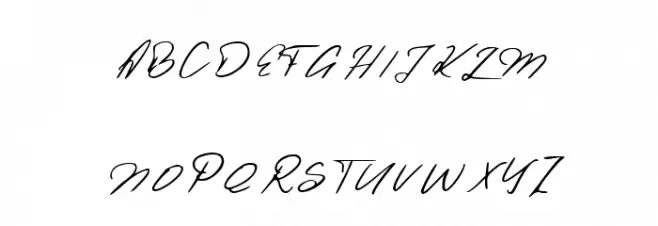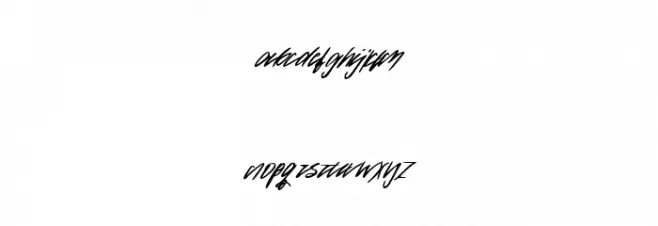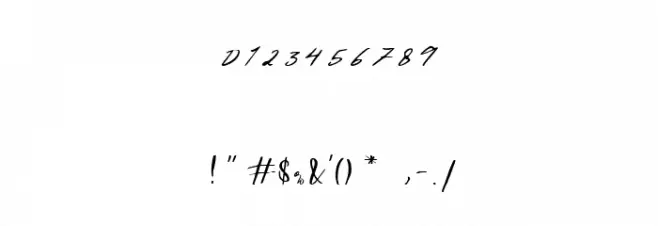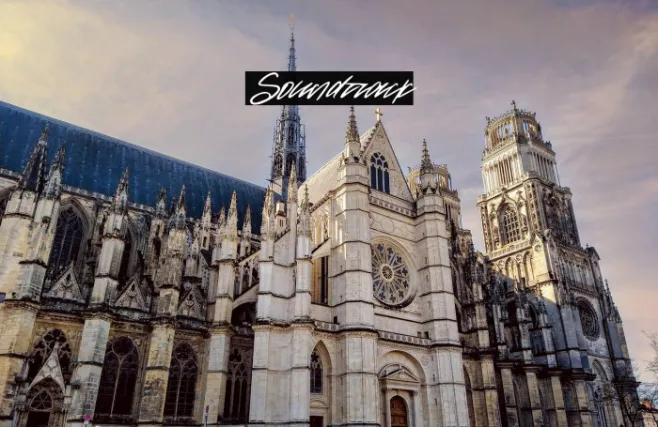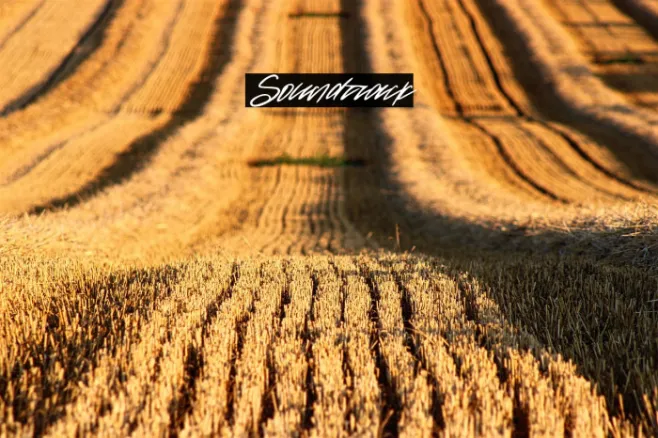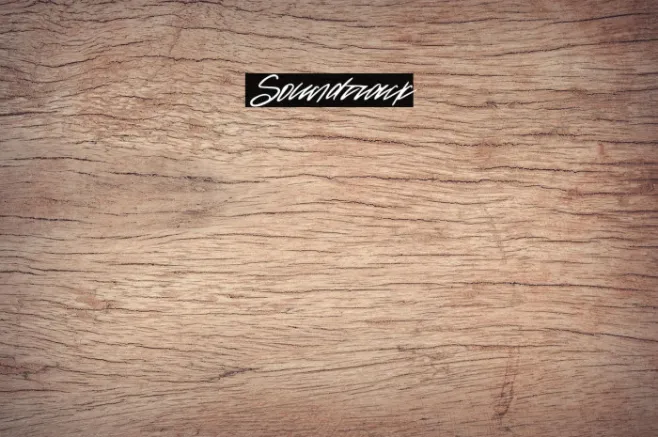
Soundtrack
This font exudes a dynamic and fluid style, characterized by its elegant, cursive script that mimics the natural flow of handwriting. The letters are interconnected with smooth, sweeping strokes that give the text a sense of motion and grace. The uppercase letters are slightly more structured, providing a balanced contrast to the more freeform lowercase letters. The numerals and special characters maintain the same flowing aesthetic, ensuring consistency throughout. This font's design is both sophisticated and approachable, making it suitable for a variety of creative applications.
A dynamic, cursive script font with elegant, flowing strokes.
- Proposed Projects: Ideal for wedding invitations, greeting cards, personal branding, and artistic projects that require a touch of elegance and personality.
- Category: Script
- Character Spacing: Tight
- Overall Style: Elegant, Artistic
- Use Case: Logos, Invitations, Artistic projects